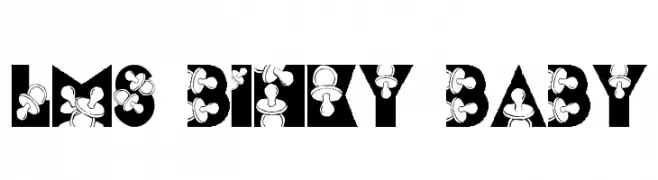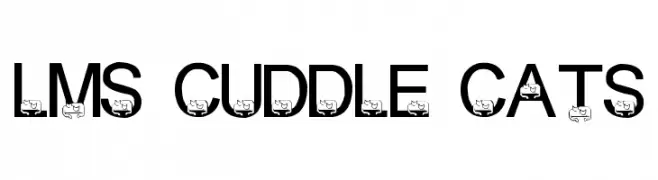
A playful, decorative font with bold, rounded letters and integrated strawberry motifs.
A playful font with characters inside cracked eggs, perfect for whimsical designs.
A whimsical font featuring letters adorned with baby shoes, perfect for playful designs.
A playful font with baby illustrations accompanying each character, perfect for child-themed projects.
A playful font with bold letters featuring integrated pacifier motifs.
A playful, dinosaur-themed decorative font with bold, blocky letters.
A playful font with bold letters and integrated cat illustrations.
A festive, decorative font with holly motifs, perfect for holiday themes.
A festive, decorative font with holly embellishments on each character.
A bold, decorative font with snowflake-filled characters for festive designs.